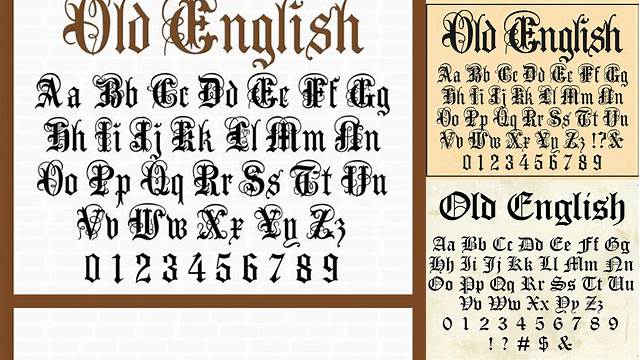
Hey design enthusiasts! Ever wanted to add a touch of classic elegance or a dash of medieval flair to your projects? Well, you're in the right place! Today, we're diving deep into the world of Old English fonts, specifically focusing on those gorgeous styles reminiscent of the Monotype Engravers era, and best of all, we're talking about free options. Whether you're working on a website, creating stunning graphics, or simply looking to jazz up your personal documents, the right font can make all the difference. This article is your ultimate guide to finding, downloading, and using these timeless fonts. We'll explore everything from the history and characteristics of these fonts to the best free resources where you can snag them. So, grab your coffee, settle in, and let's get started on this typography adventure!
The Allure of Monotype Engravers Old English
Alright, guys, let's talk about why Monotype Engravers Old English fonts are so darn appealing. These fonts aren't just letters; they're a statement. They evoke feelings of tradition, history, and sophistication. The intricate details, the flowing curves, and the bold serifs all contribute to a visual experience that's both captivating and memorable. These fonts often remind people of illuminated manuscripts, vintage signage, and classic book covers. But what exactly makes a font an 'Old English' font? Generally, they mimic the blackletter scripts used in Western Europe from the 12th century onward. These scripts were incredibly popular during the Middle Ages and Renaissance periods, and they've since seen a resurgence in popularity, thanks to their unique aesthetic. Monotype Engravers, in particular, refers to the fonts designed and produced by the Monotype Corporation, a pivotal company in the history of typography. Their Engravers series often features fonts that are exceptionally detailed and designed to be both beautiful and highly readable. Many fonts in this category are based on the work of early engravers and calligraphers, adding to their historic charm. Using a Monotype Engravers Old English font can instantly elevate your design work, whether you're working on a project with a historical theme, a gothic aesthetic, or just want to add a touch of class.
What sets these fonts apart is the combination of elegance and readability. While some elaborate fonts can be difficult to read, the best Old English fonts strike a balance, ensuring that the message is clear while still maintaining the ornate style that makes them so distinctive. They're perfect for headlines, titles, logos, and anywhere you want to make a strong visual impact. So, whether you are designing a wedding invitation, a product logo, or a website banner, these fonts can add a unique touch.
Understanding the Characteristics of Old English Fonts
So, what are the key features that make an Old English font? Well, let's break it down. First and foremost, you'll notice the elaborate serifs. Serifs are the small strokes at the end of the main strokes of each letter. In Old English fonts, these serifs are often thick, ornate, and highly stylized. They create a sense of visual weight and add to the font's overall elegance. Next up, the letterforms themselves are often quite dense and closely spaced. This is a characteristic inherited from the handwriting styles of the time, where space was a precious commodity. The density of the letters makes the font feel compact and impactful. You'll also observe a distinctive calligraphic quality. Many Old English fonts are inspired by the flowing strokes of calligraphy, adding a sense of artistry and craftsmanship. The varying line weights and curves give each letter a unique and dynamic look. Furthermore, many of these fonts feature unique letter shapes, such as the 'long s' (Å¿), which was commonly used in place of the modern 's' in older texts. Other distinctive features include the 'swash' characters, which are elaborate flourishes that extend beyond the main letterforms. These are used for added decorative effects.
It’s also important to note that Monotype Engravers Old English fonts are often highly detailed. They are designed to be both visually appealing and readable. They often incorporate elements of both calligraphy and engraving styles. This allows you to add a sense of sophistication and style to your projects. Understanding these key characteristics will help you identify and appreciate the beauty and craftsmanship of these fonts. It will also guide you in choosing the right font for your specific design needs.
Free Font Resources for Monotype Engravers Style
Font Squirrel is another excellent resource, known for its high-quality, free fonts and its commitment to commercial-use licensing. They carefully vet their fonts to ensure they're high-quality and legally available for commercial projects. This is super important if you're using the font for client work or anything that might involve making money. They also offer a handy font identifier, which can help you identify a font if you've seen it somewhere but don't know its name. Font Squirrel is a great choice if you need a trustworthy source for commercial use. When using these Monotype Engravers Old English fonts, ensure that you are following the site's regulations.
1001 Fonts
This website is another fantastic source for finding a broad selection of Old English fonts. They have a great collection of different styles and are always updating their library. They, like the others, have a pretty straightforward interface, so you should have no trouble finding the perfect font for your project. Always check the licensing terms before downloading. They also provide font previews, which are helpful when deciding on the right font. Make sure to review the terms of use for each font to ensure it suits your needs.